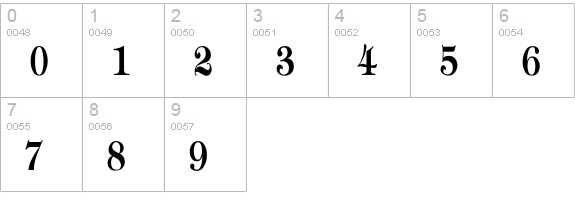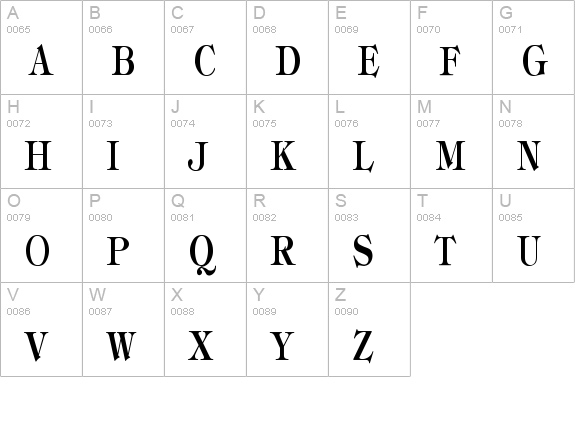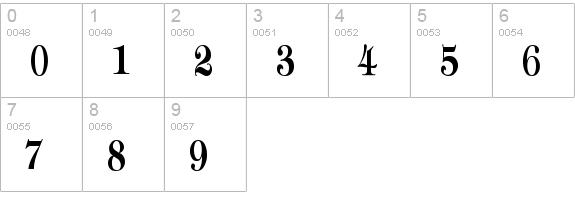
Tiffany-Bold Cn Font Details
Tiffany-Bold Cn is a strong, high-contrast variant in the Tiffany typeface family \xE2\x80\x94 well suited to headlines, attention-grabbing titles, and strong calls-to-action.
Tiffany-Bold Cn font is a stunning typeface that exudes elegance and sophistication. With its bold and confident strokes, this font is perfect for making a statement in any design project. The tall and slender letterforms add a touch of modernity and versatility, making it suitable for a wide range of applications. This font boasts a unique combination of curves and sharp edges, creating a harmonious balance between softness and strength. Its clean and crisp lines ensure legibility even at smaller sizes, making it ideal for both print and digital designs. One of the best features of Tiffany-Bold Cn font is that it is available for free download at FontsMarket.com. This means that you can easily access and use this font in your projects without any restrictions. Whether you're a professional designer or a hobbyist, this font allows you to add a touch of sophistication to your work, without breaking the bank. So why wait? Download Tiffany-Bold Cn font today and elevate your designs to new heights. With its timeless appeal and the freedom to use it in any project, this font is sure to become a valuable addition to your font library. Experience the beauty and versatility of Tiffany-Bold Cn font and let your creativity shine!